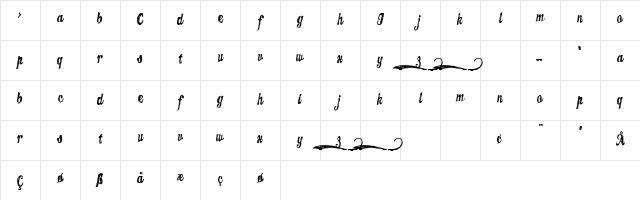
Complete CANDY INC. Copyright (c) 2010 by Billy Argel. All rights reserved. free for personal use only. complete set available contact  TRAIAL glyph index. Displaying only characters natively supported by CANDY INC. Copyright (c) 2010 by Billy Argel. All rights reserved. free for personal use only. complete set available contact  TRAIAL font.
CANDY INC. Copyright (c) 2010 by Billy Argel. All rights reserved. free for personal use only. complete set available contact  is a composed and adaptable typeface that performs quietly and consistently across a wide range of design contexts.
Who designed the CANDY INC. Copyright (c) 2010 by Billy Argel. All rights reserved. free for personal use only. complete set available contact  TRAIAL font?